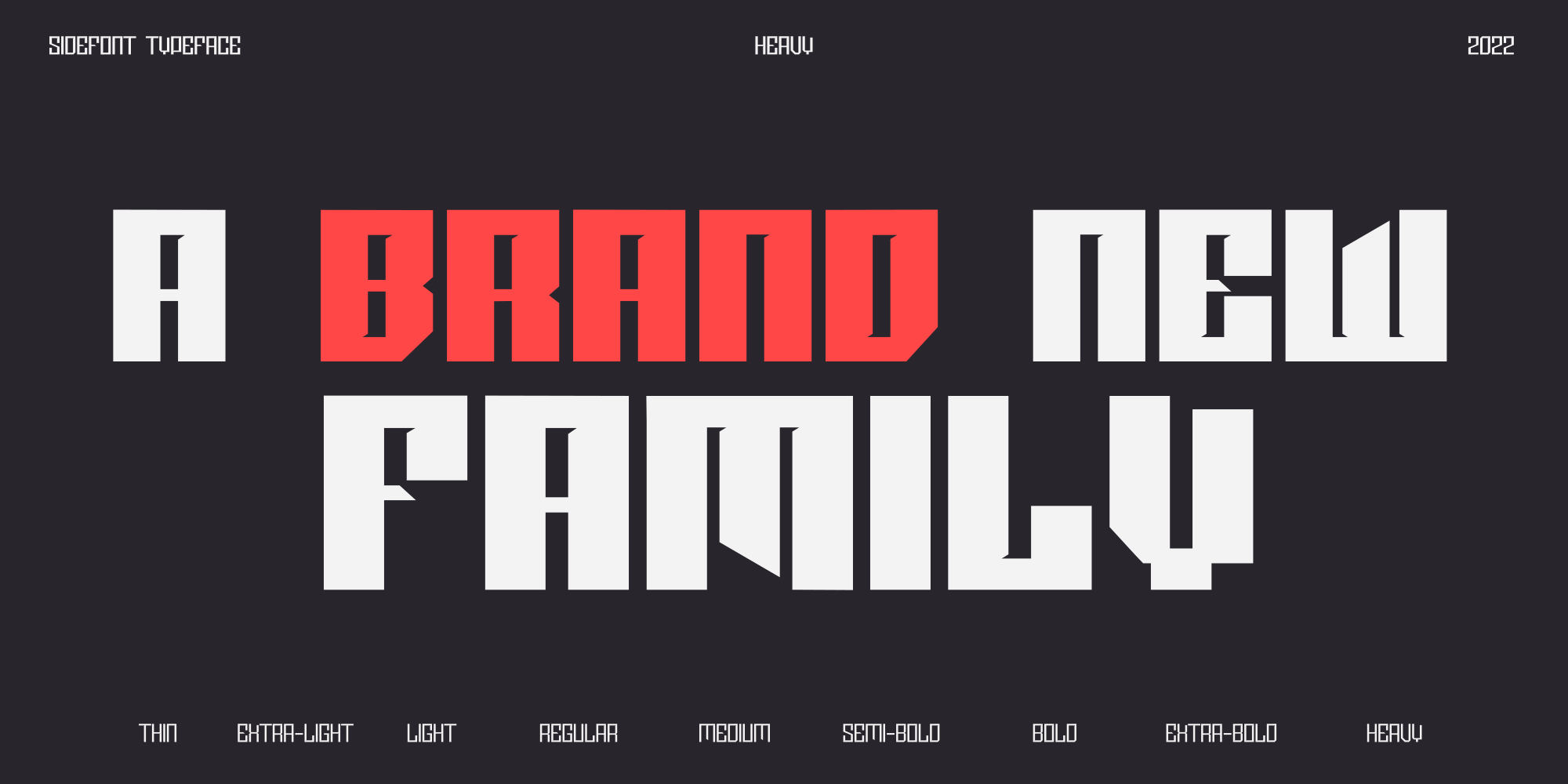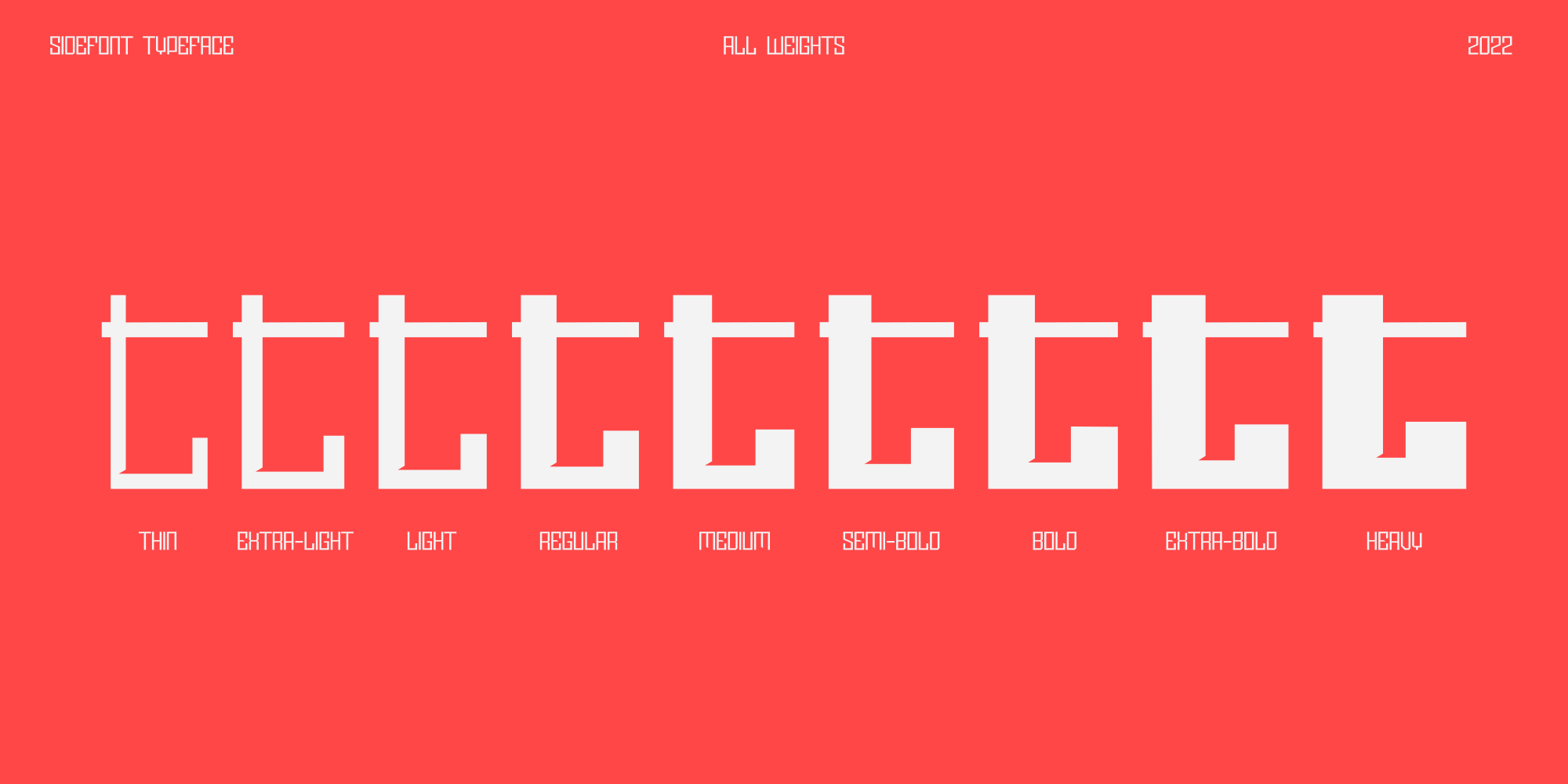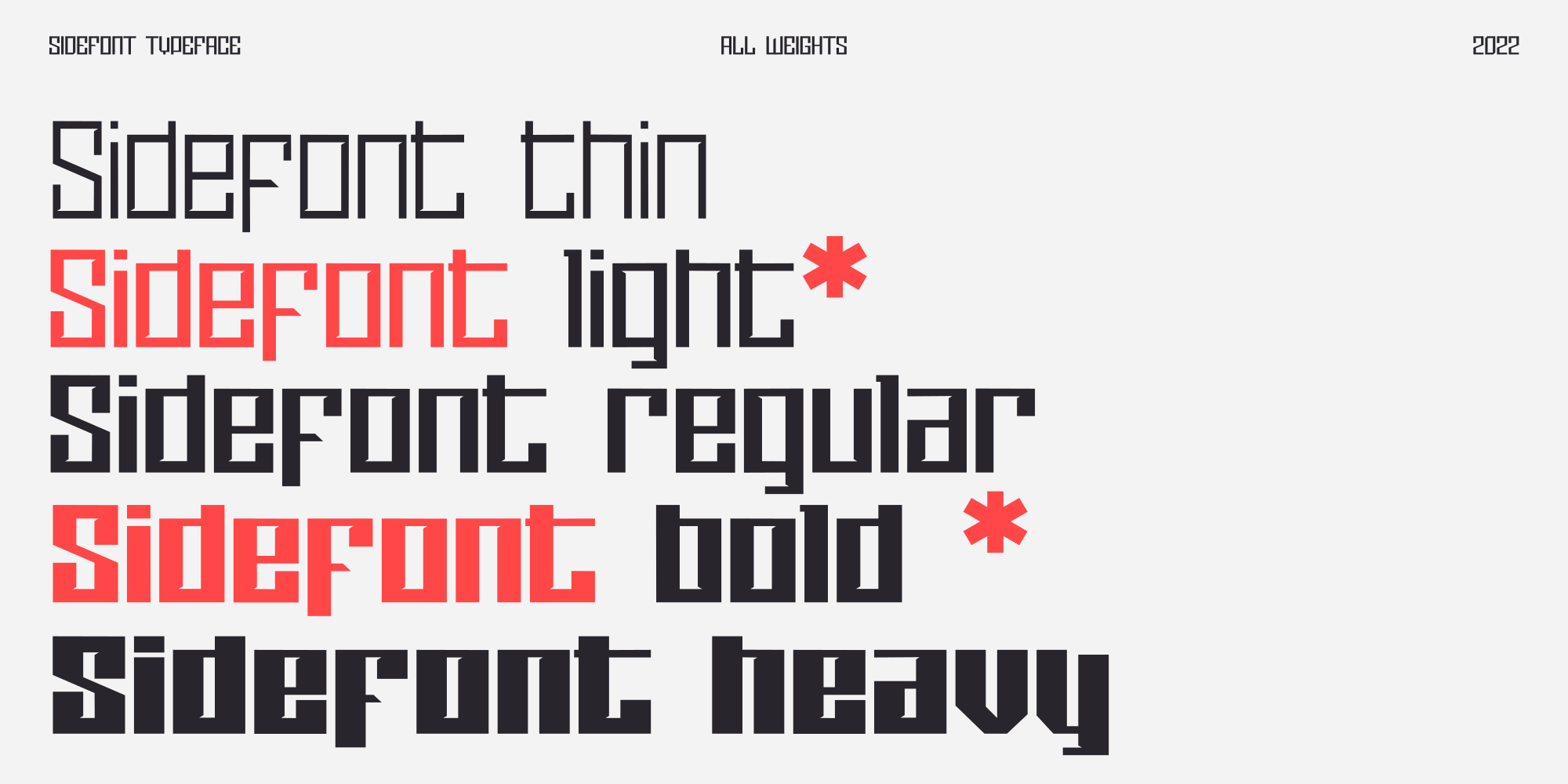
Sidefont Display Font is a sharp, square family of 9 fonts inspired by the Sidemen Logo: The font broadens its use by supplying weights all the way from thin to black. Perfect for posters, headlines and logotypes.
Sidefont is a sharp, square family of 9 fonts inspired by the Sidemen Logo:
The font broadens its use by supplying weights all the way from thin to black.
Perfect for posters, headlines and logotypes.